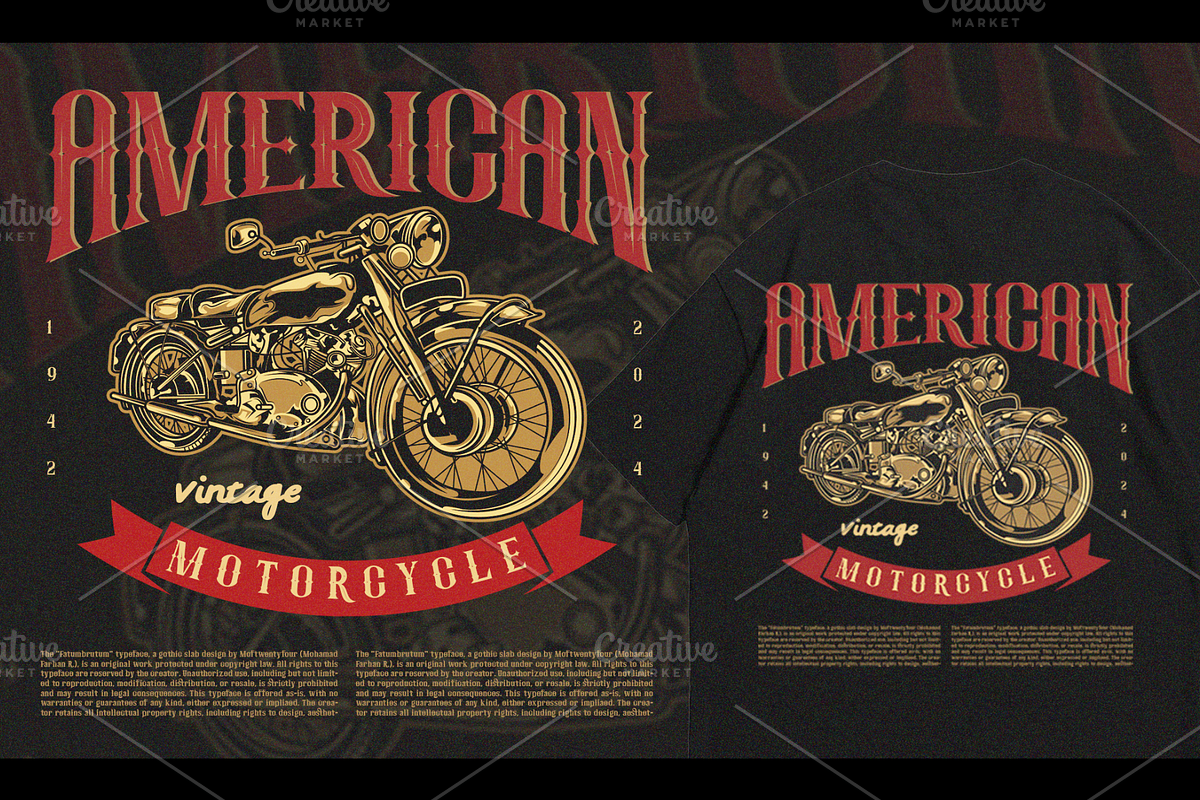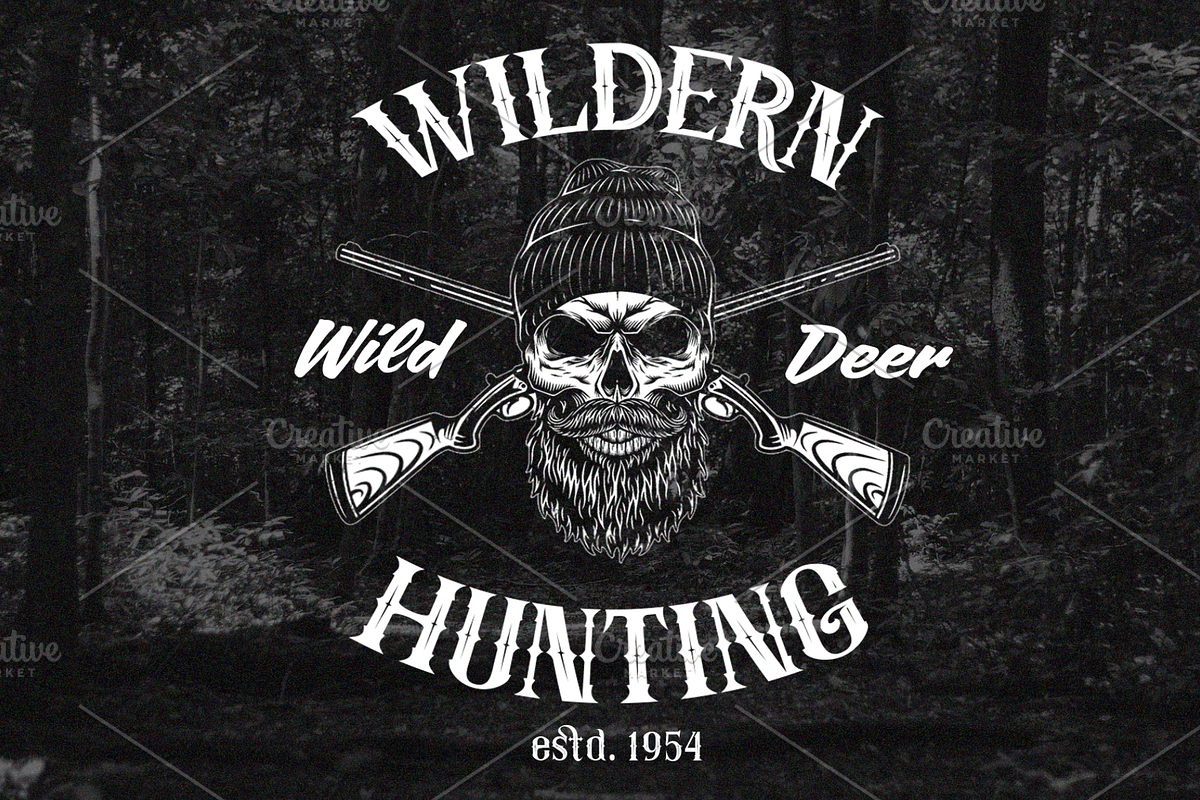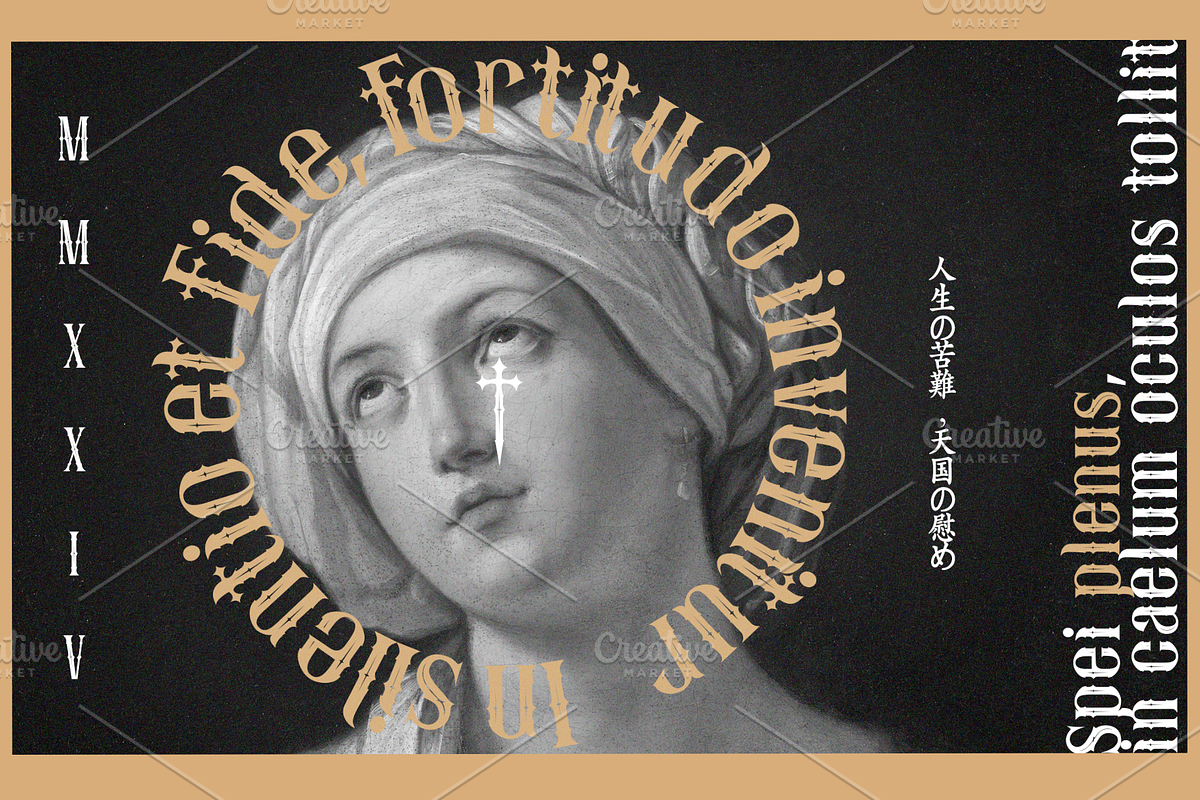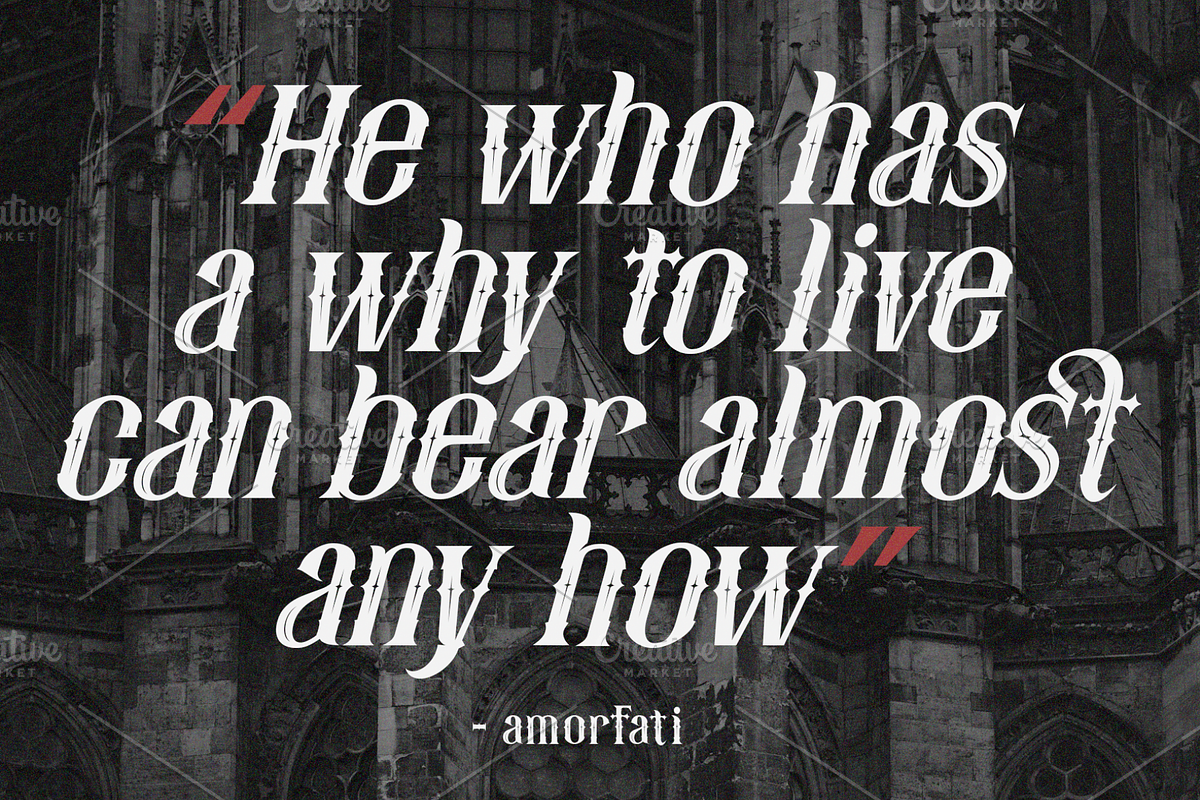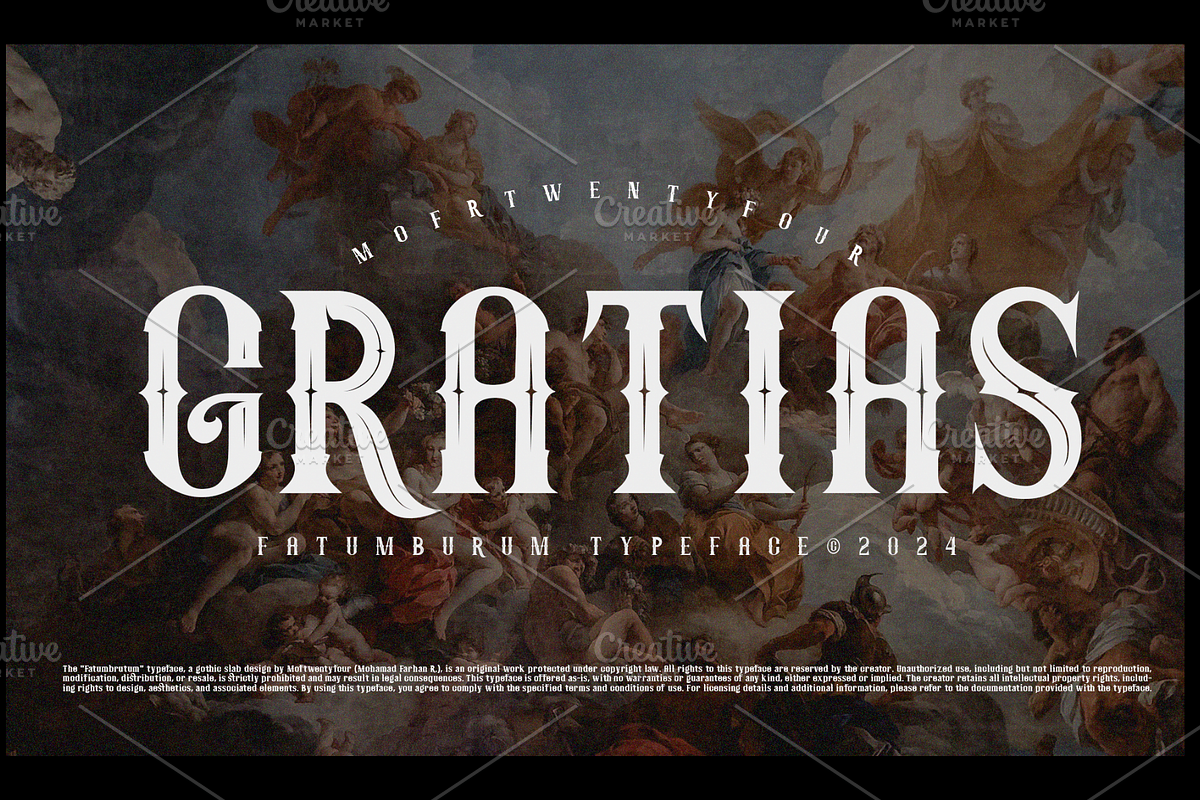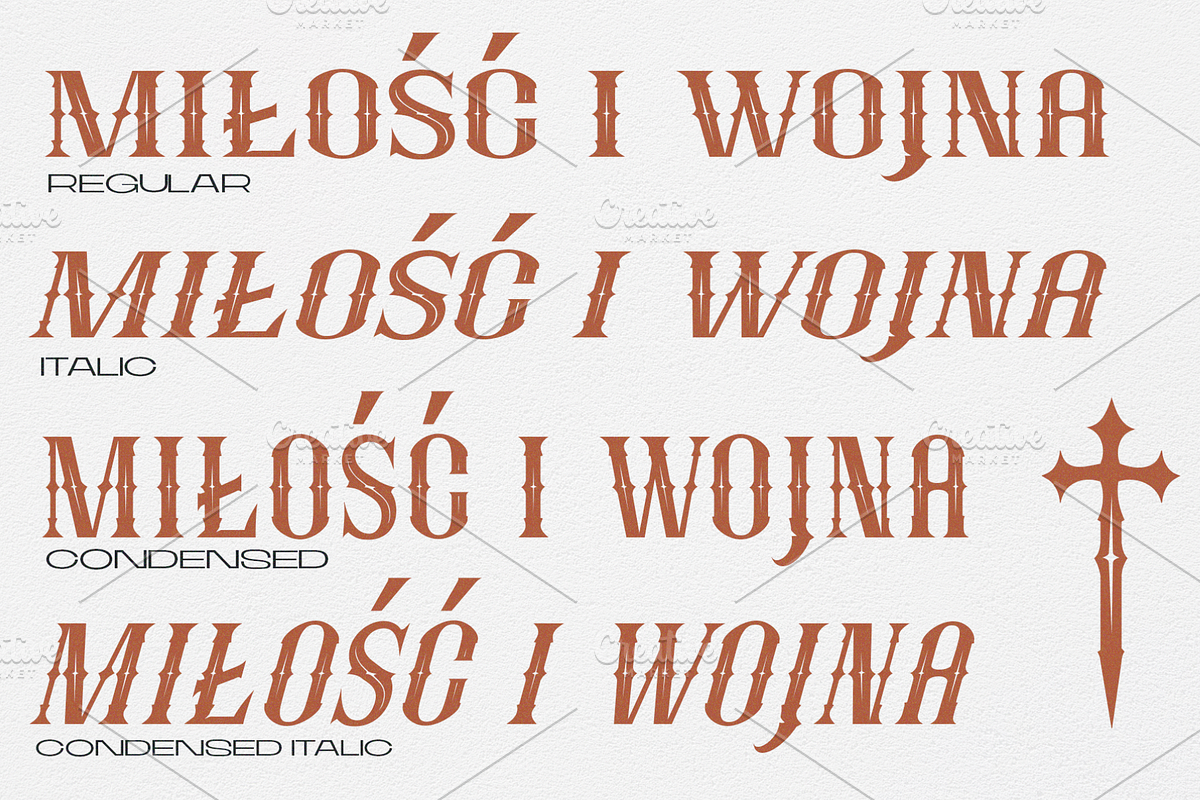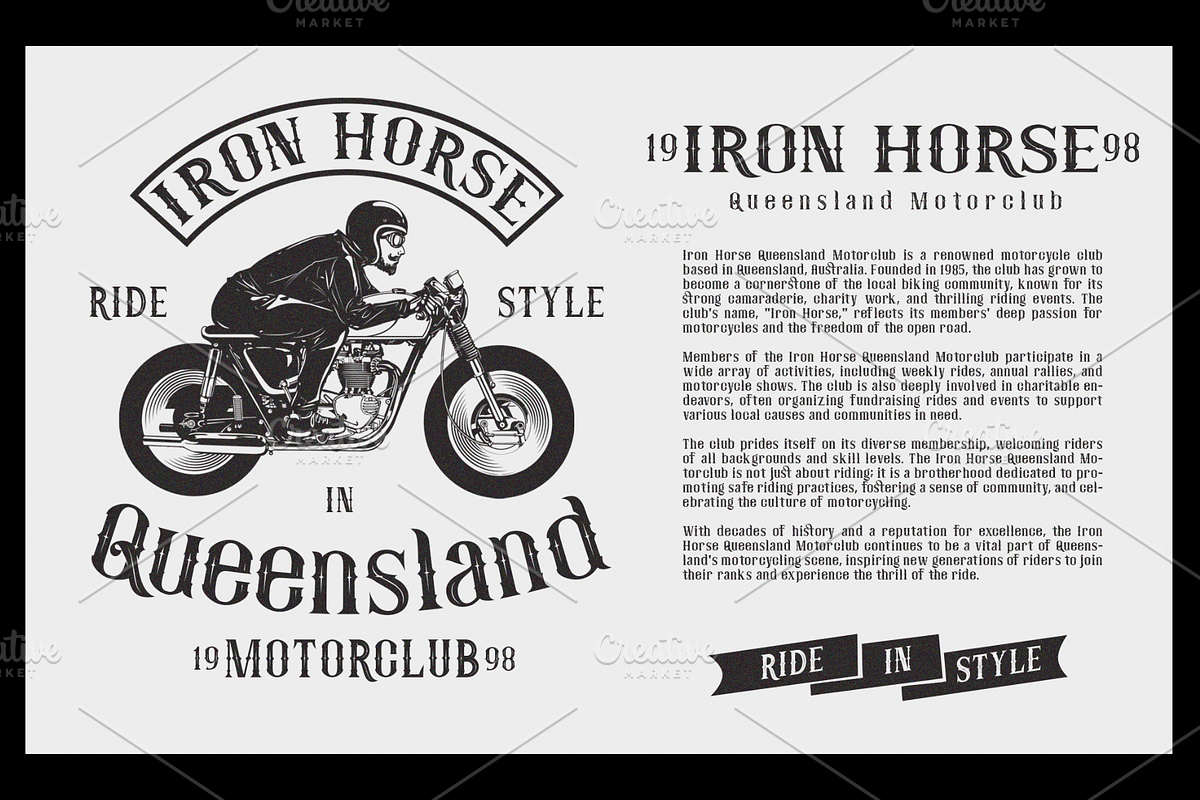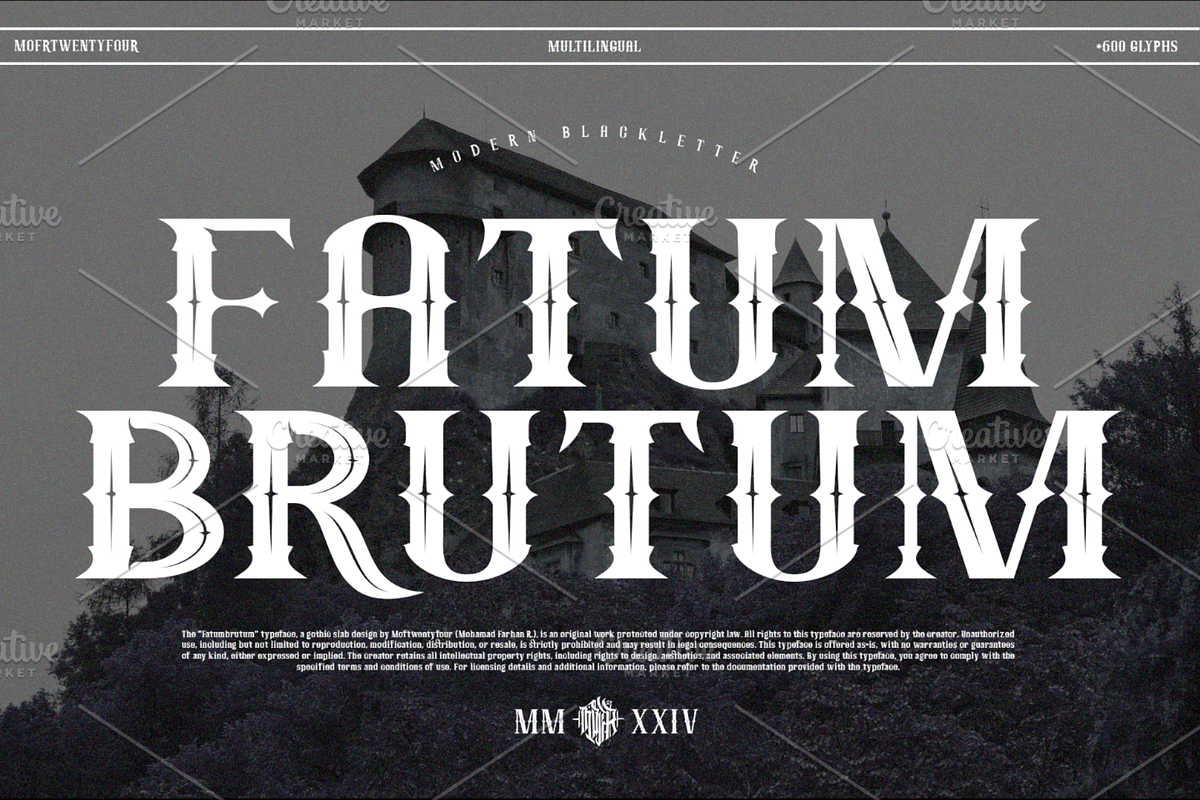
Fatum Brutum - Modern Blackletter
Immerse yourself in the classic allure of Fatumburum, a contemporary display of Blackletter excellence. This font blends tradition and trendiness, whispering authenticity while boldly declaring sophistication. Its versatility sparkles across languages with support for multiple alphabets and an impressive vault of more than 600 glyphs. Fatumburum invites you to explore its diverse styles, offering Condensed, Italic, and Regular forms. It’s the perfect ingredient for an eclectic array of creations, from striking logos and polished magazines to unique typographic art and catchy streetwear designs. Adorned with engraved details, Fatumburum promises to add a distinguished flair to your design, ensuring it stands uniquely arresting in a crowd.